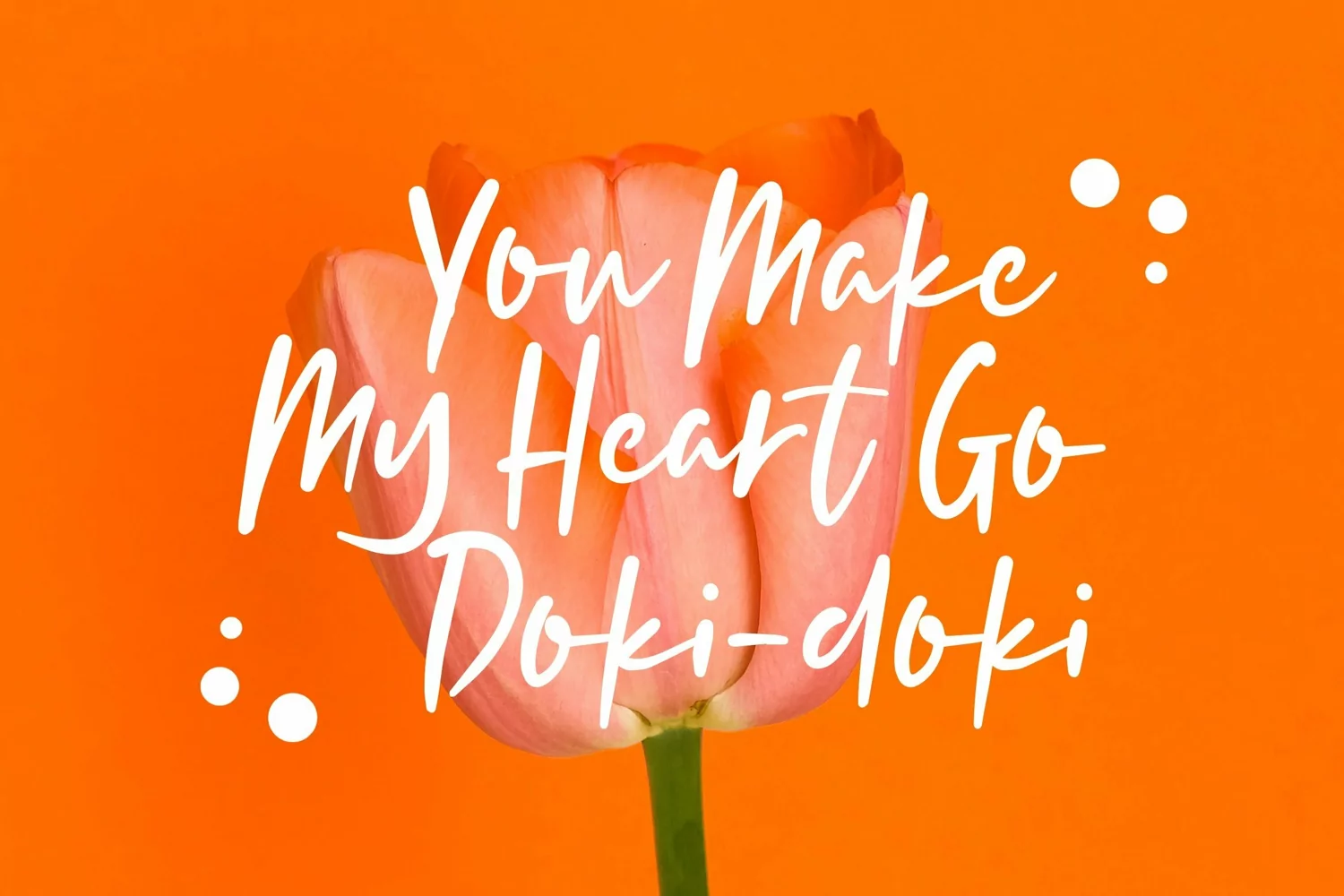
Bisticsa - Script Fonts that contain lowercase, uppercase, symbol, and also support multi language. There’s a lot ligatures in this font. This Font also comes with ligatures, alternates and many more. this font suitable for fashion, branding, catalog and other design what you want.